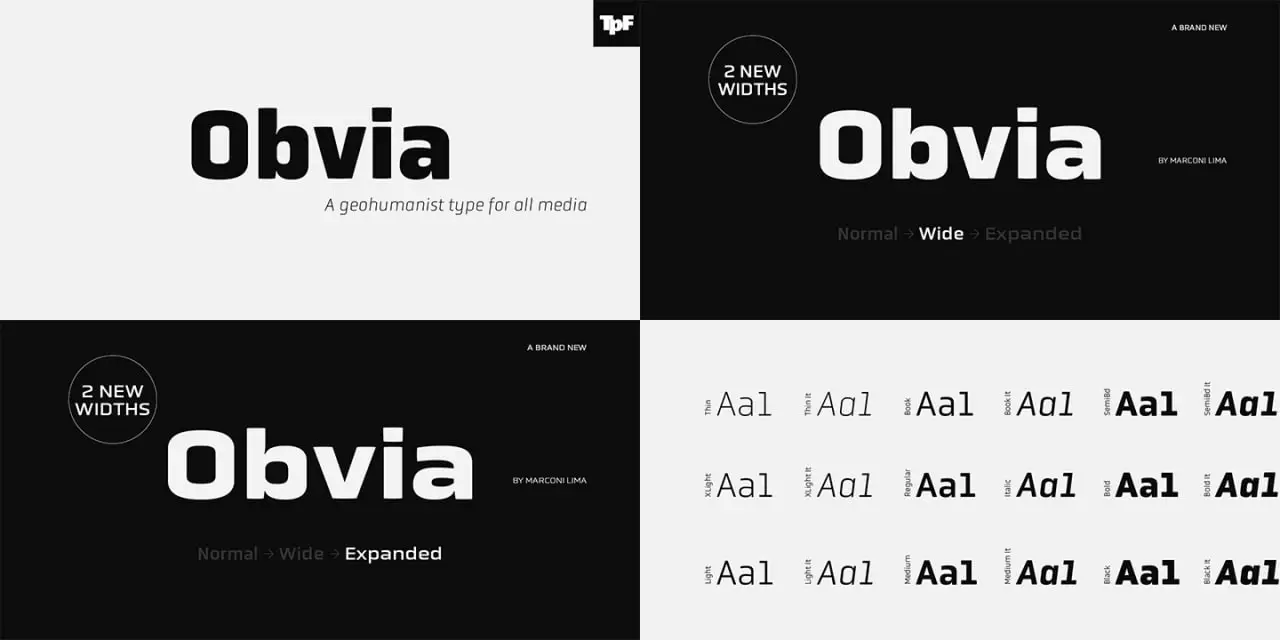
Obvia Fonts By Marconi Lima [ Typefolio ]
Introducing Obvia Fonts by Marconi Lima, a versatile typeface perfect for a variety of design projects. This font family features a range of styles, including regular, bold, and italic weights, allowing for flexibility in your creative endeavors.
• Multiple weights for diverse applications
• Clean and modern design
• Easy to read, making it suitable for both print and digital use
This font is ideal for branding, logos, web design, and print materials. Its modern aesthetic makes it a great choice for UI design and promotional graphics.